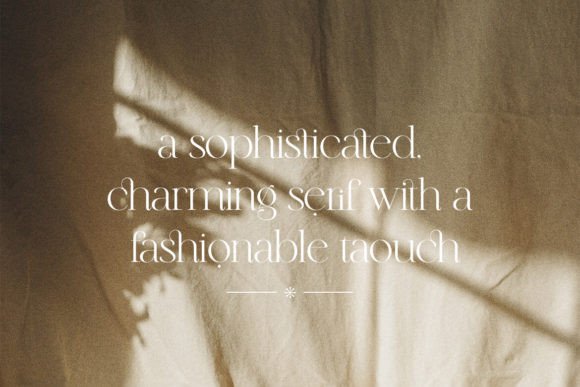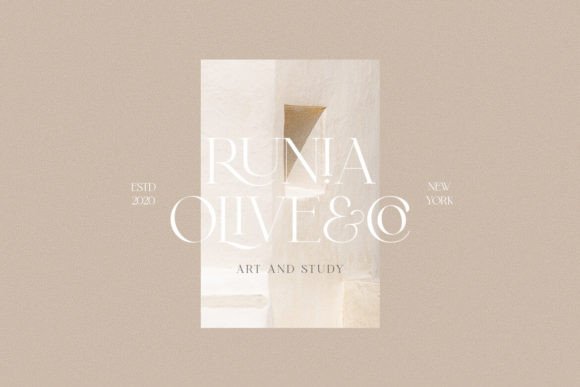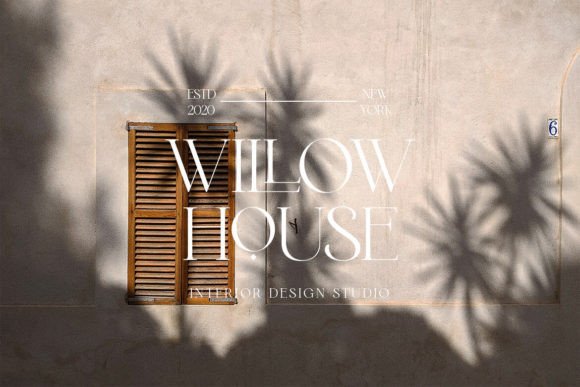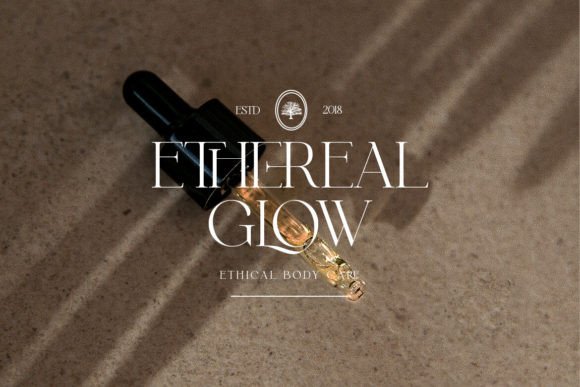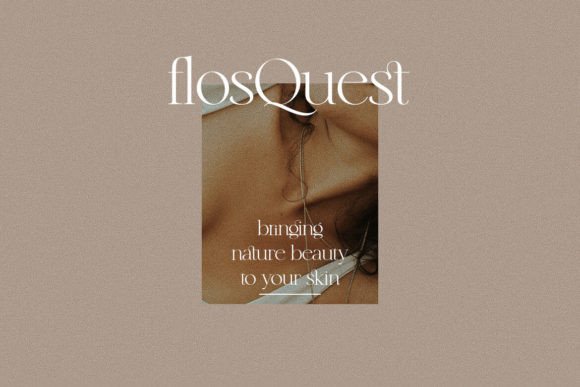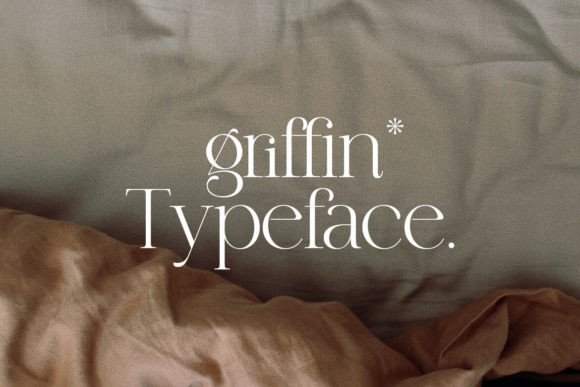
Introducing Griffin Font: Elevate Your Designs with Elegance and Sophistication
In the world of typography, fonts play a crucial role in conveying the tone and personality of a brand or design. For fashion-themed projects, a font that exudes elegance, chicness, and sophistication is essential. This is where Griffin Font comes into play – a modern serif font designed specifically for creating stunning, high-end designs. In this article, we’ll dive into the world of Griffin Font, exploring its features, benefits, and uses, as well as provide tips and inspiration for designers and crafters.
What is Griffin Font?
Griffin Font is a chic and elegant display modern serif font, carefully crafted to add a touch of luxury to any design. Its beautiful contrast and sleek lines make it perfect for fashion-themed projects, such as logos, titles, magazines, and more. Whether you’re a designer, crafty DIY enthusiast, or simply someone who appreciates beautiful typography, Griffin Font is an excellent choice for elevating your designs.
Key Features of Griffin Font
- Modern Serif Design: Griffin Font boasts a modern serif design, characterized by clean lines, elegant curves, and a sophisticated aesthetic.
- Beautiful Contrast: The font’s beautiful contrast between thick and thin strokes adds depth and visual interest to any design.
- Fashion-Themed: Griffin Font is specifically designed for fashion-themed projects, making it an ideal choice for designers and crafters working in the fashion industry.
- Elegant and Chic: The font’s elegant and chic appearance makes it perfect for creating high-end designs that exude sophistication and luxury.
Benefits of Using Griffin Font
So, why choose Griffin Font for your designs? Here are just a few benefits of using this stunning font:
- Instantly Elevate Your Designs: Griffin Font’s elegant and sophisticated design instantly elevates your designs, making them perfect for high-end fashion brands, luxury products, or elegant lifestyle designs.
- Versatile: The font is versatile and can be used for a wide range of design projects, from logos and titles to magazines and more.
- Easy to Read: Despite its elegant design, Griffin Font is easy to read, making it perfect for body text, headings, and titles.
- Unique and Memorable: Griffin Font’s unique design ensures that your designs stand out from the crowd, making them more memorable and impactful.
Uses of Griffin Font
Griffin Font is perfect for a wide range of design projects, including:
- Logos: Create stunning logos for fashion brands, luxury products, or elegant lifestyle designs.
- Titles and Headings: Use Griffin Font for titles, headings, and subheadings in magazines, brochures, or websites.
- Magazines and Editorials: Add a touch of elegance to your magazine or editorial designs with Griffin Font.
- Packaging Design: Use Griffin Font for packaging design, such as labels, tags, or product packaging.
Tips for Using Griffin Font
Here are a few tips for using Griffin Font effectively in your designs:
- Pair with Neutral Colors: Pair Griffin Font with neutral colors, such as black, white, or beige, to create a clean and elegant design.
- Experiment with Sizes: Experiment with different font sizes to create visual interest and hierarchy in your designs.
- Add Texture and Patterns: Add texture and patterns to your designs to give them a more luxurious and high-end feel.
Inspiration and Examples
For inspiration and examples of Griffin Font in use, take a look at the following designs:
- Fashion Magazine Covers: Use Griffin Font for fashion magazine covers, such as Vogue, Elle, or Harper’s Bazaar.
- Luxury Brand Logos: Use Griffin Font for luxury brand logos, such as Gucci, Chanel, or Louis Vuitton.
- Elegant Packaging Design: Use Griffin Font for elegant packaging design, such as perfume packaging or high-end food products.
In conclusion, Griffin Font is a stunning modern serif font that adds a touch of elegance and sophistication to any design. Its beautiful contrast, sleek lines, and versatile design make it perfect for fashion-themed projects, luxury brands, and elegant lifestyle designs. Whether you’re a designer, crafty DIY enthusiast, or simply someone who appreciates beautiful typography, Griffin Font is an excellent choice for elevating your designs.